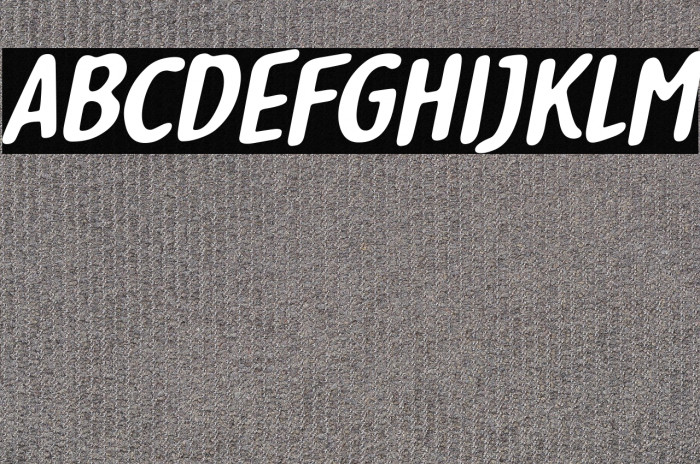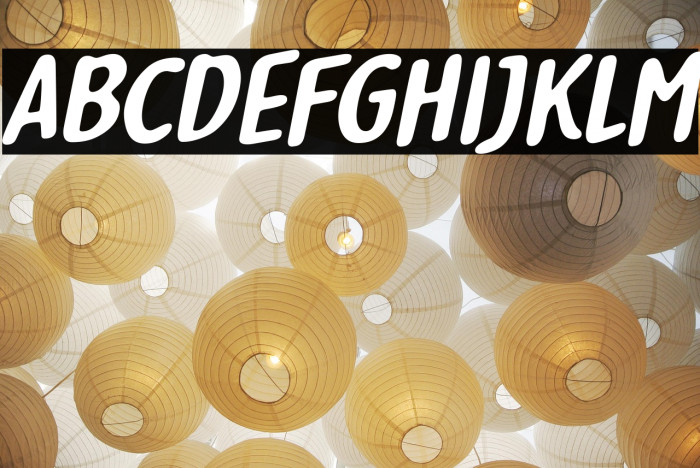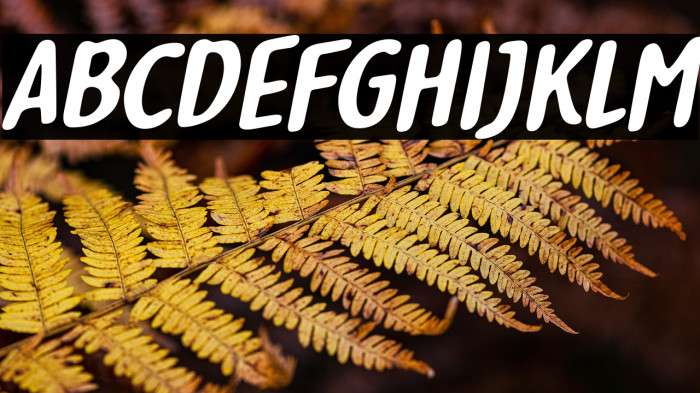
Delightious Italic Font
Delightious Italic Description
This font features a playful and dynamic style with a handwritten appearance. The letters are slightly slanted, giving it an italicized look that adds a sense of motion and energy. The strokes are bold and rounded, providing a friendly and approachable feel. The characters are well-spaced, ensuring readability while maintaining a casual aesthetic. This font is versatile, suitable for a variety of creative projects that require a personal touch.
| Proposed Projects | Ideal for greeting cards, invitations, playful branding, and social media graphics. |